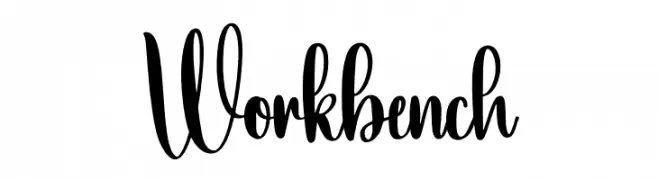
( Fonts by PutraCetol Studio )
A bold, star-patterned decorative font with a playful and whimsical style.
( Fonts by Namela Type )
A playful, bold outline font with a bubble-like appearance.
( Fonts by Scratchones )
Bold, decorative handwritten script with flowing, connected strokes.